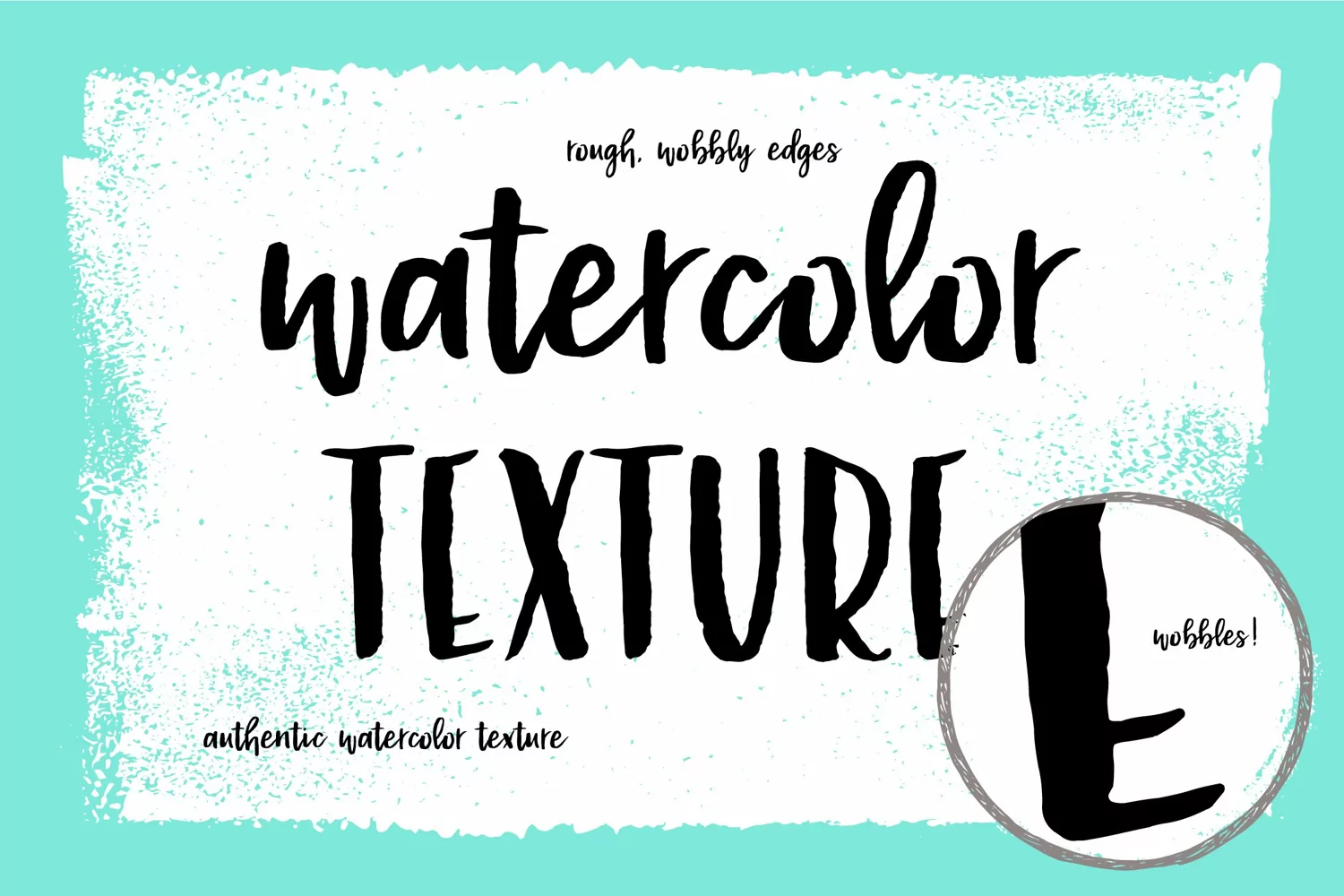
Malibu Punch, a flirty brush font
NEW and smooth! Now Malibu Punch comes in a smooth version!
Malibu Punch. I am loving this sassy script font!
I made it with an itty bitty brush and pretty blue and violet watercolors. It's got loads of texture - check out those edges! Wobbly rough watercolor edges!
The capital letters work together, so it's like two fonts in one! The lowercase script is so sassy and full of attitude. And it comes with a bunch of messy ink splatters to decorate your work.
Great for branding, logos, and quote art.